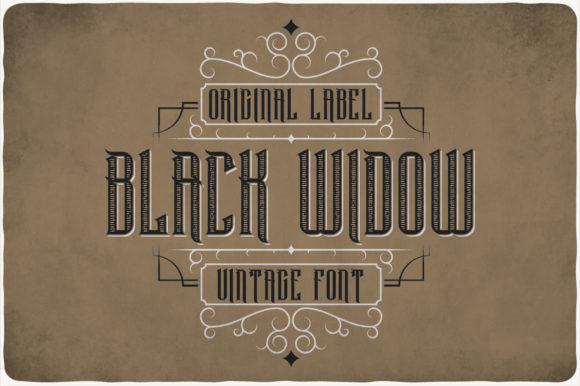
I’ll never forget the design project that led me to discover the Black Widow Font. I was working on a branding project for a Gothic-inspired fashion label, and I was struggling to find the perfect font to capture the essence of their dark, edgy vibe. That’s when I stumbled upon Black Widow, a stylish vintage-looking blackletter font that instantly resonated with the brand’s aesthetic.
As I explored the font’s features and capabilities, I knew I had found the perfect fit. In this article, I’ll share my experience with Black Widow, its unique characteristics, and how to make the most of it in your designs.
- ✅ Unique and eye-catching design: Black Widow’s vintage-inspired blackletter style is sure to turn heads and add a touch of sophistication to your designs.
- ✅ Excellent for headlines and titles: Black Widow’s bold and dramatic design makes it perfect for grabbing attention and creating striking headlines.
- ⚠️ Limited legibility at small sizes: Due to its intricate design, Black Widow can be challenging to read at smaller font sizes. Use it for headlines and titles, but consider a simpler font for body text.
The Story Behind Black Widow: Designer Inspiration
Black Widow was inspired by the dark, mysterious world of vintage fashion and Gothic literature. Its designer aimed to create a font that would evoke the sense of luxury, elegance, and drama found in these styles. The result is a font that is both stylish and haunting, perfect for designs that require a touch of sophistication and intrigue.
| Font Name | Black Widow Font |
| Author | Vozzy Vintage Fonts And Graphics |
A: Black Widow is best used for headlines, titles, and other display text. Its bold and dramatic design makes it perfect for grabbing attention and creating striking visuals.
Q: Is Black Widow a difficult font to read?
A: Black Widow can be challenging to read at smaller font sizes due to its intricate design. However, at larger sizes, it is highly legible and easy to read.